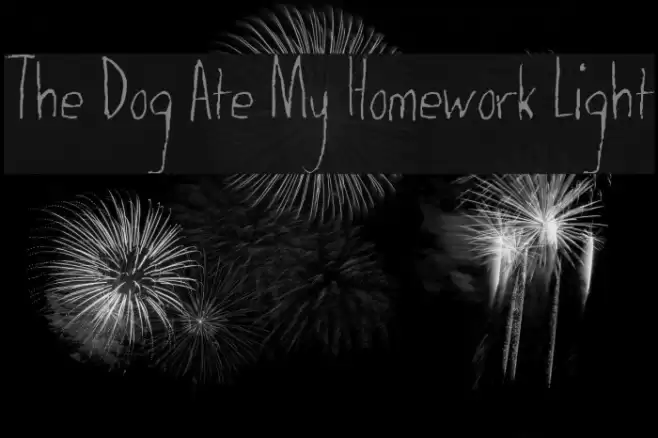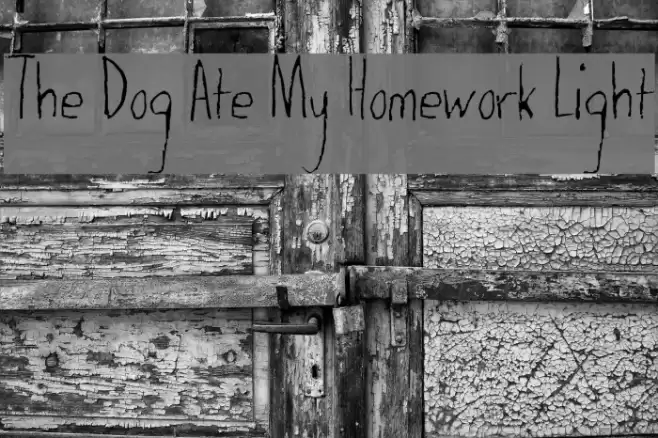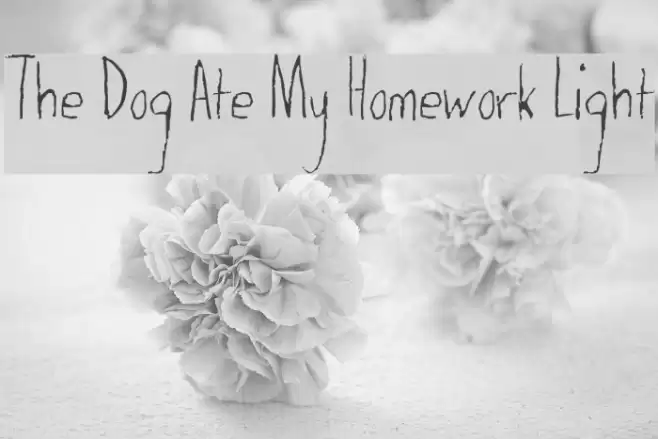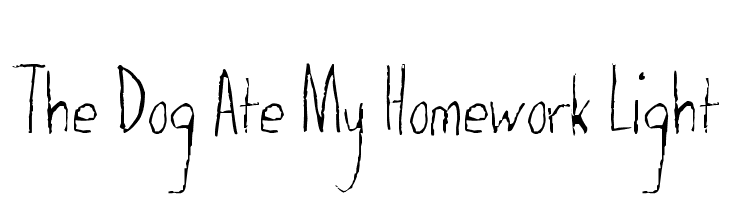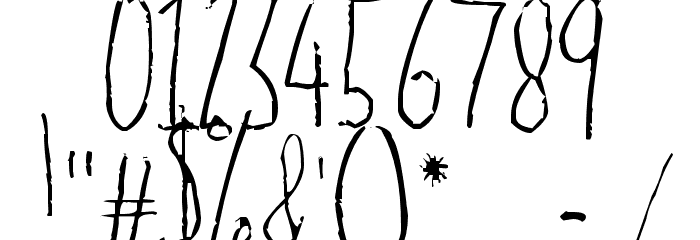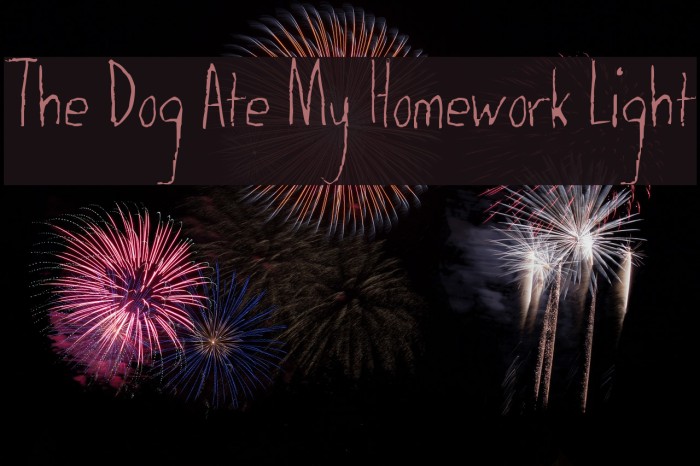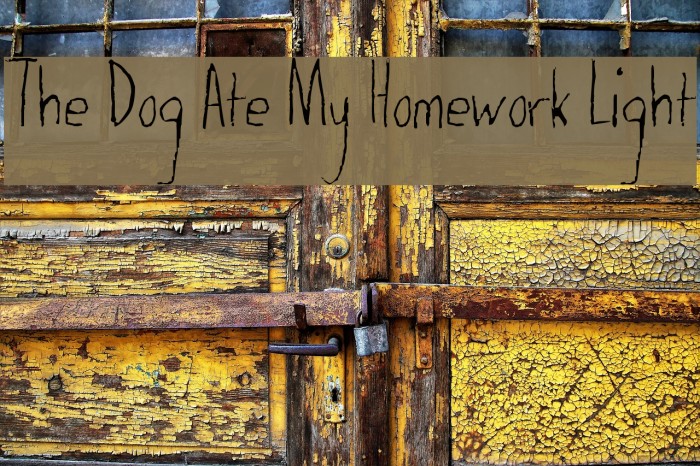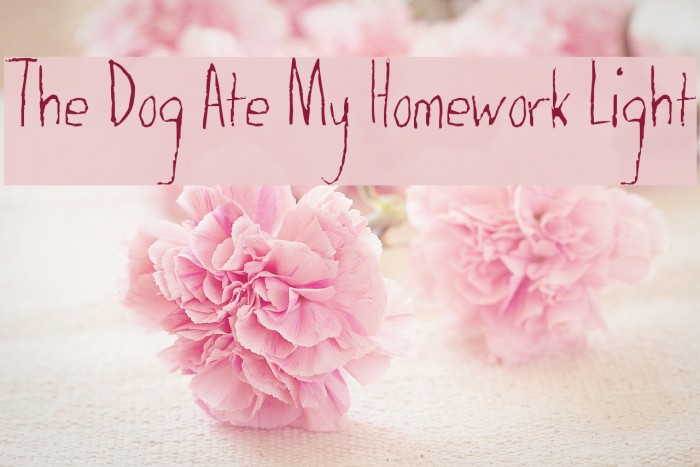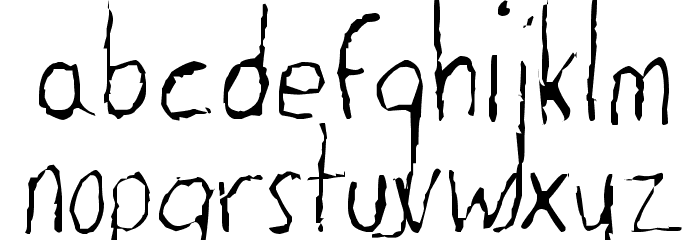
The Dog Ate My Homework Light Font
The Dog Ate My Homework Light Description
This font features a playful and whimsical design, reminiscent of a child's handwriting. The characters are irregular and slightly uneven, giving it a casual and informal appearance. The strokes are thin and have a hand-drawn quality, with a slight wobble that adds to its charm. The uppercase and lowercase letters maintain a consistent style, while the numbers and special characters follow the same playful theme. This font is perfect for projects that require a fun and lighthearted touch.
A playful, hand-drawn font with a whimsical, childlike style.
- Proposed Projects: Ideal for children's books, playful branding, greeting cards, and educational materials.
- Category: Handwritten
- Overall Style: Playful
- Use Case: Headlines, Informal text, Creative projects